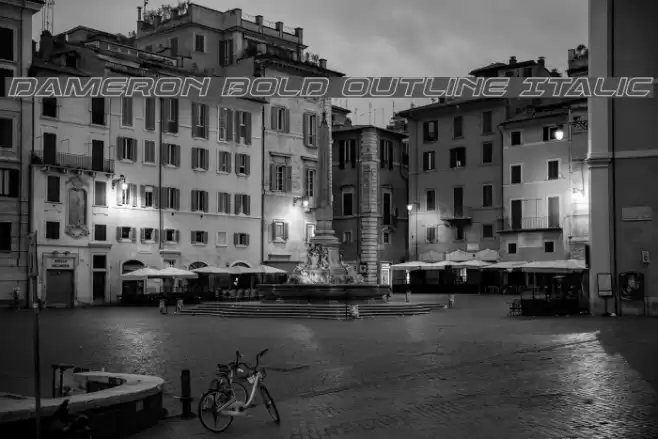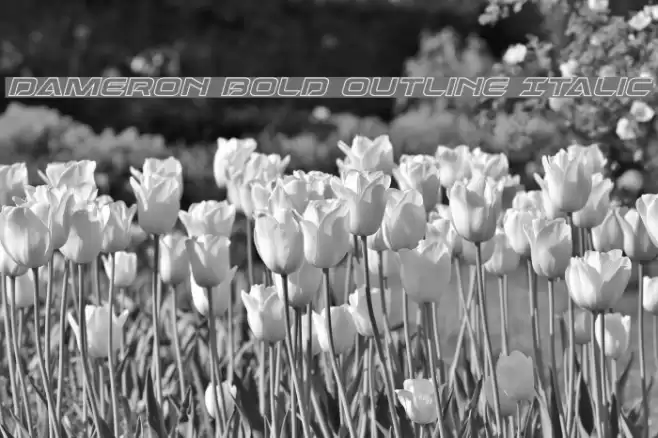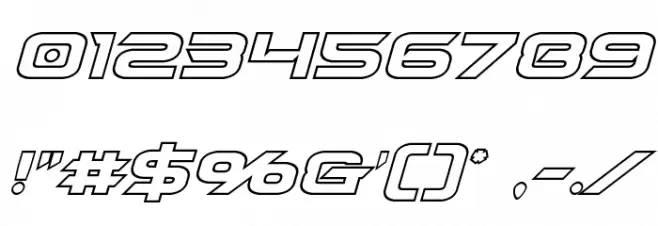
Dameron Bold Outline Italic Font
Dameron Bold Outline Italic Description
This font features a bold, italicized outline style that gives it a futuristic and dynamic appearance. The characters are designed with a distinct slant, enhancing the italic effect, while the bold outlines provide a strong visual impact. The geometric shapes and clean lines contribute to a modern aesthetic, making it suitable for attention-grabbing designs. The uppercase and lowercase letters maintain a consistent style, with numerals and special characters following the same design principles. The overall look is sleek and contemporary, ideal for projects that require a standout typeface.
A bold, italicized outline font with a futuristic and dynamic style from Sci-fi fonts.
- Proposed Projects: Ideal for sci-fi themed posters, modern branding, video game titles, and tech-related logos.